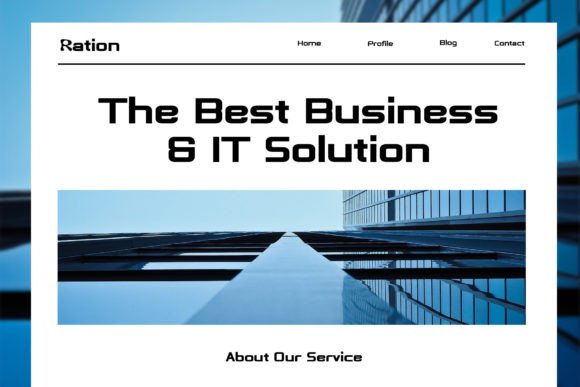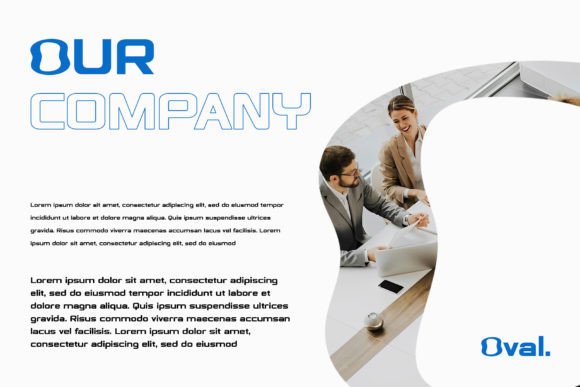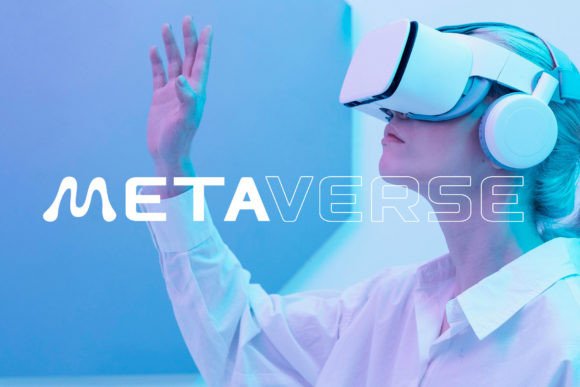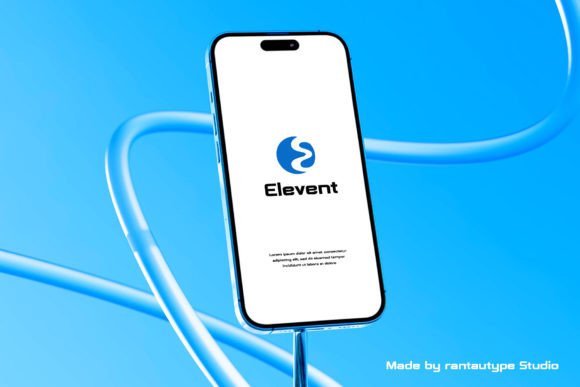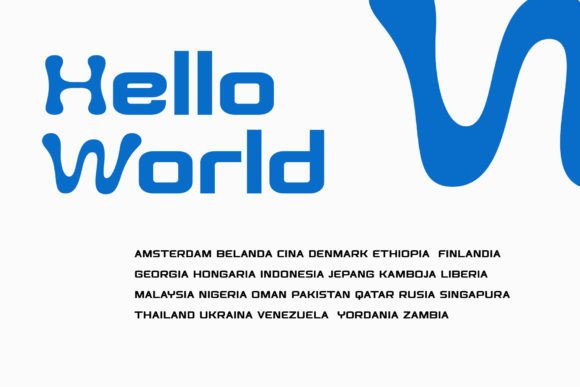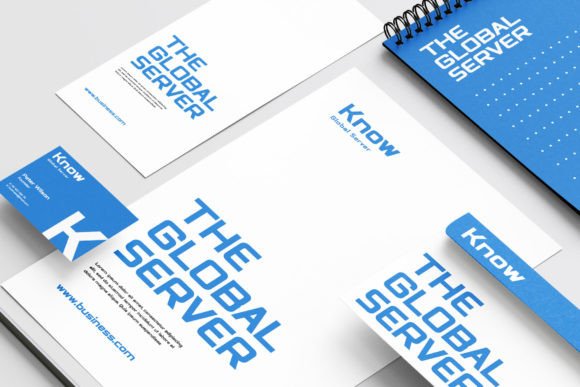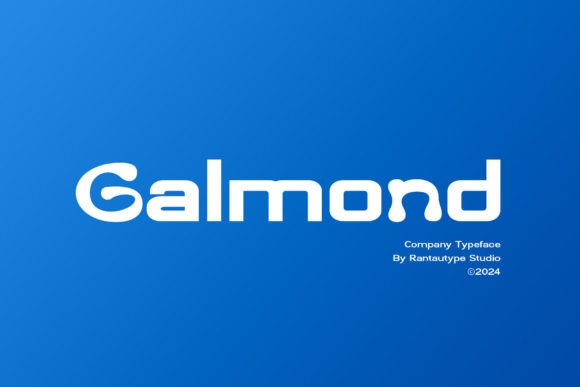
Galmond Font: The Modern Typeface for Futuristic Designs
In the world of typography, a new font has emerged that is taking the design community by storm. Galmond, a modern company typeface with a futuristic look, is making waves with its soft and flowy curves, liquid alternate trend, and versatility. In this article, we’ll dive into the features and benefits of Galmond, and explore why it’s becoming a go-to font for designers and crafters.
The Galmond Difference
Galmond is a unique typeface that boasts a futuristic aesthetic, perfect for designs that require a modern and sleek look. The font features soft and flowy curves, which give it a liquid alternate trend that makes it stand out from other fonts. This distinctive characteristic makes Galmond perfect for a wide range of design projects, from branding and advertising to packaging and digital media.
Regular and Outline Versions
One of the standout features of Galmond is that it comes in two versions: regular and outline. This allows designers to have even more flexibility and creativity when working on their projects. The regular version of Galmond is perfect for bold and statement-making designs, while the outline version is ideal for more subtle and intricate designs. Having both options at your disposal makes Galmond an incredibly versatile font that can be used in a multitude of ways.
Galmond is a font that is specifically designed with designers and crafters in mind. Whether you’re working on a branding project, creating a logo, or designing a craft project, Galmond is the perfect choice. The font’s modern and futuristic look makes it perfect for projects that require a cutting-edge aesthetic. Additionally, the font’s versatility and range of use make it an excellent choice for designers who need a font that can adapt to different styles and themes.
Key Features of Galmond
- Modern and futuristic look: Galmond’s unique design makes it perfect for designs that require a sleek and modern aesthetic.
- Soft and flowy curves: The font’s liquid alternate trend gives it a distinctive and eye-catching look.
- Versatile: Galmond can be used for a wide range of design projects, from branding and advertising to packaging and digital media.
- Regular and outline versions: Having both options at your disposal makes Galmond an incredibly versatile font.
Tips and Tricks for Getting the Most Out of Galmond
Here are a few tips and tricks for getting the most out of Galmond:
- Experiment with different sizes and styles: Galmond looks great in a range of sizes and styles, so don’t be afraid to experiment and find the perfect look for your design.
- Pair Galmond with other fonts: Galmond pairs well with a range of other fonts, so try combining it with other typefaces to create a unique and eye-catching look.
- Use Galmond for headlines and titles: Galmond’s bold and futuristic look makes it perfect for headlines and titles.
In conclusion, Galmond is a modern company typeface with a futuristic look that is perfect for designers and crafters. Its soft and flowy curves, liquid alternate trend, and versatility make it an excellent choice for a wide range of design projects. With both regular and outline versions available, Galmond is a font that can adapt to different styles and themes. Whether you’re working on a branding project, creating a logo, or designing a craft project, Galmond is the perfect choice.